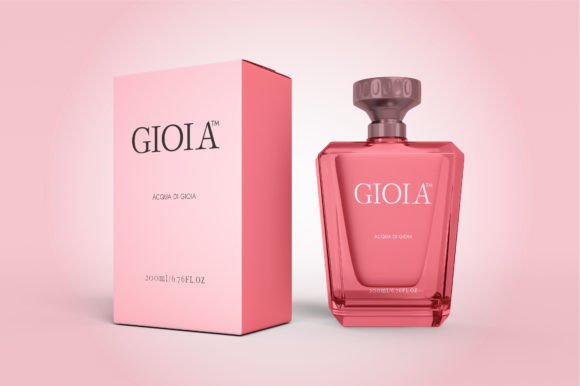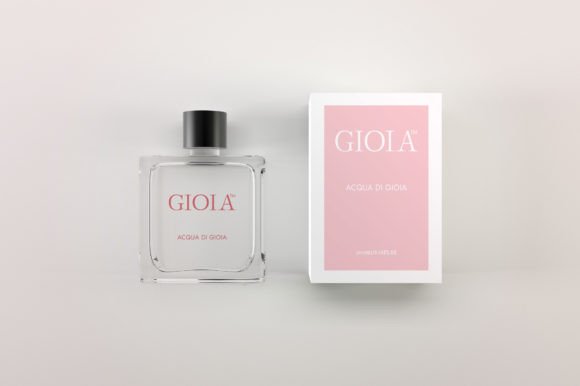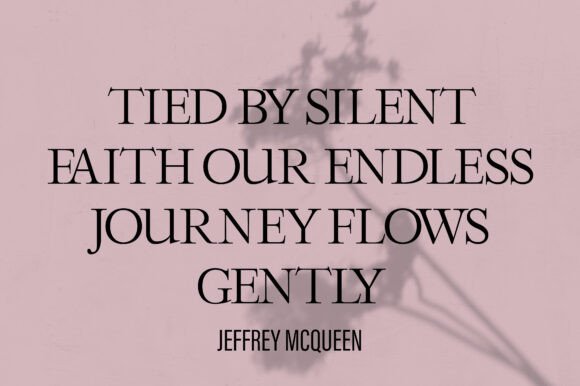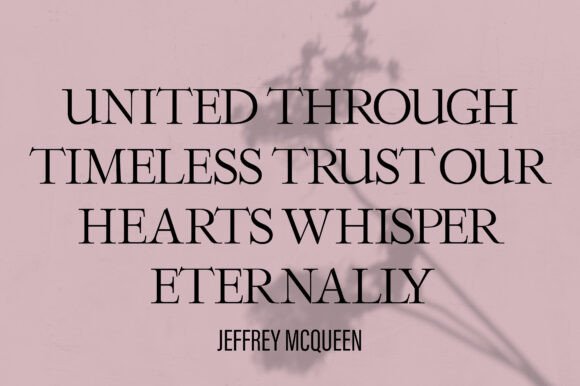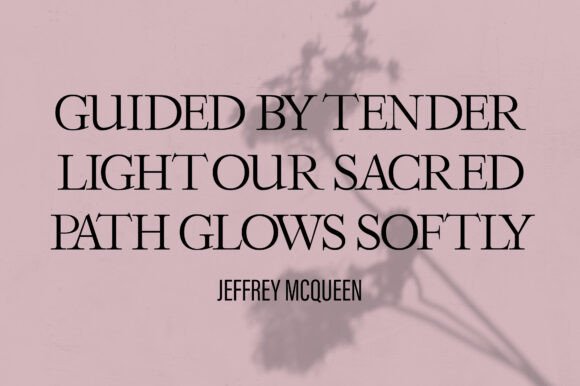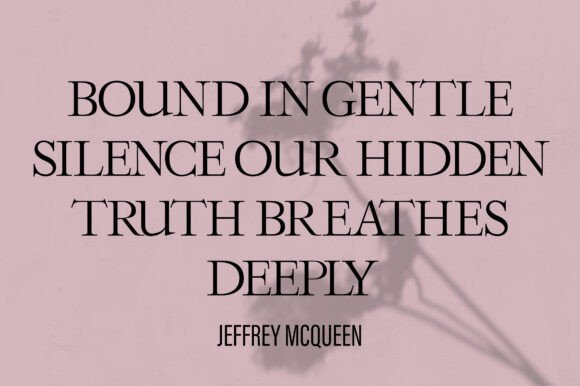
Gioia Font: The Epitome of Elegance and Romance in Typography
In the realm of typography, few fonts manage to strike a balance between romance, minimalism, and elegance. However, Gioia Font effortlessly achieves this delicate equilibrium, making it a standout in the world of design. This exquisite serif typeface has been crafted to bring an air of sophistication and refinement to various design projects, including packaging, fragrance design, titling, cosmetics, and website banners.
The Characteristics of Gioia Font
Gioia Font is distinguished by its elegant appearance and meticulously structured glyphs. The font’s design is characterized by clean lines, subtle curves, and a refined aesthetic that exudes luxury and poise. Its minimalist approach ensures that the font remains versatile and highly legible, making it suitable for a wide range of applications.
Key Features of Gioia Font
- Elegant Serif Design: Gioia boasts a classic serif design that adds a touch of sophistication to any project.
- Minimalist Aesthetic: The font’s minimalist approach ensures it remains unobtrusive, allowing the content to take center stage.
- Accurate Glyphs Structure: Each glyph is carefully crafted for optimal readability and aesthetic appeal.
- Versatility: Gioia can be used in various design contexts, from packaging and cosmetics to website banners and titling.
Applications of Gioia Font
The versatility of Gioia Font makes it an excellent choice for numerous design projects. Here are some of the areas where Gioia truly shines:
Packaging Design
In packaging design, the font’s elegant and refined appearance can elevate product packaging, making it more visually appealing and sophisticated. Whether it’s a luxury brand or a boutique product, Gioia adds a classy touch that can set the product apart.
Fragrance Design
Fragrance branding often requires a typography style that conveys luxury and allure. Gioia Font, with its sophisticated and elegant design, is perfect for perfume and fragrance packaging, advertising, and branding.
Titling and Headlines
For titling and headlines, Gioia’s minimalist yet impactful design makes it an excellent choice. It can add a level of sophistication and glamour to any title or headline, capturing the audience’s attention effectively.
Cosmetics Design
In the cosmetics industry, branding and packaging play a crucial role. Gioia Font can help cosmetics brands achieve a luxurious and high-end look, appealing to customers who value elegance and sophistication.
Website Banners
For digital applications, such as website banners, Gioia can add a touch of elegance and professionalism. Its clear and legible design ensures that messages are conveyed effectively, even in digital formats.
Why Choose Gioia Font?
Choosing Gioia Font for your design projects means opting for a typeface that combines aesthetic appeal with functionality. Its elegant and minimalist design, coupled with its versatility, makes it an invaluable asset for designers looking to add a sophisticated touch to their work.
Once you incorporate Gioia into your creations, you’ll quickly discover why it stands out from other fonts. Its ability to elevate the visual appeal of any project, while maintaining readability and elegance, makes it a favorite among designers and crafters.
Gioia Font is more than just a typeface; it’s a design statement that speaks of elegance, romance, and sophistication. Its minimalist and refined aesthetic, combined with its versatility, makes it an ideal choice for a multitude of design applications. Whether you’re working on packaging, fragrance design, titling, cosmetics, or website banners, Gioia Font is sure to become an indispensable part of your design toolkit.